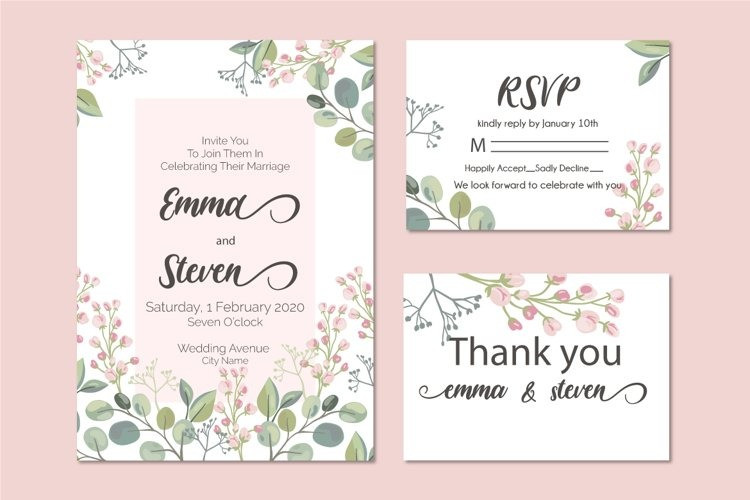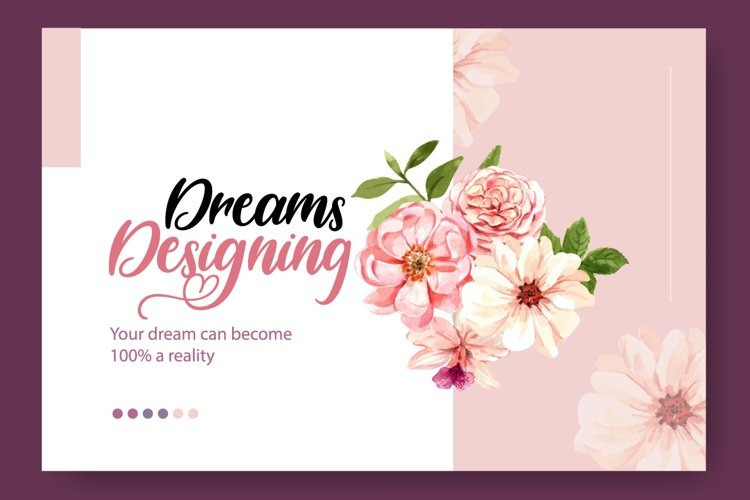
Daylight Font
Daylight Calligraphy Font
This is a lovely and delicate script font that exudes elegance and class. Fall in love with its authentic feel and use it to create gorgeous wedding invitations, beautiful stationary art, eye-catching social media posts, and cute greeting cards.
This font is PUA encoded which means you can access all of the cute glyphs and swashes with ease! It also features a wealth of special features including alternate glyphs and ligatures.This font is suitable for any design like branding, quotes and etc.